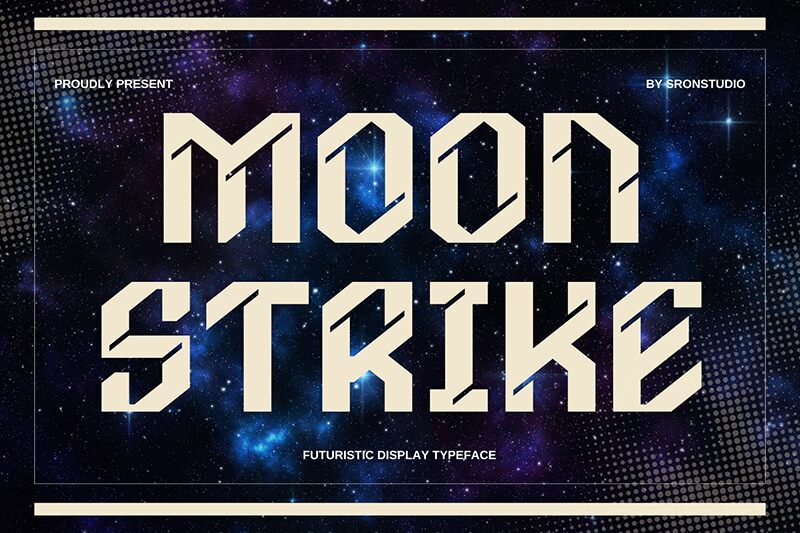
Moonstrike font by Sronstudio is a futuristic display typeface showcasing distinctive angular and geometric letterforms. It has an inherently solid construction that instantly emphasizes the importance of your message. Its edgy appearance makes its look captivating at first glance, giving the design’s reader a major reason to stay up for what’s coming next.
The many possible design use cases with this free font include covers (album/book/magazine), posters, titles (movie/anime/game), or even branding projects related to technology and the future. Printed products such as brochures, flyers, business cards, and packages can also benefit with its implementation especially when it comes to deals that need visual teasing highly important messages.